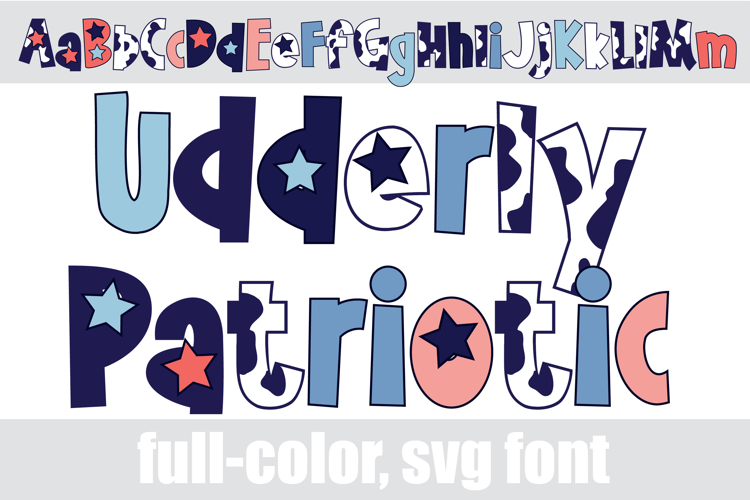
Udderly Patriotic Too Color Font
This full-color, whimsical font is in a pastel patriotic color palette with stripes and stars and cow print. There is an alt case of additional colors of each letter that you can access through your system's character map.